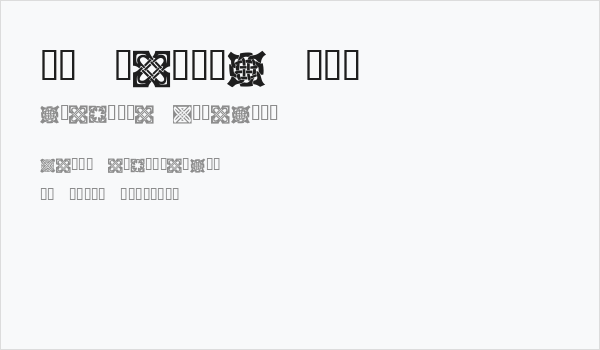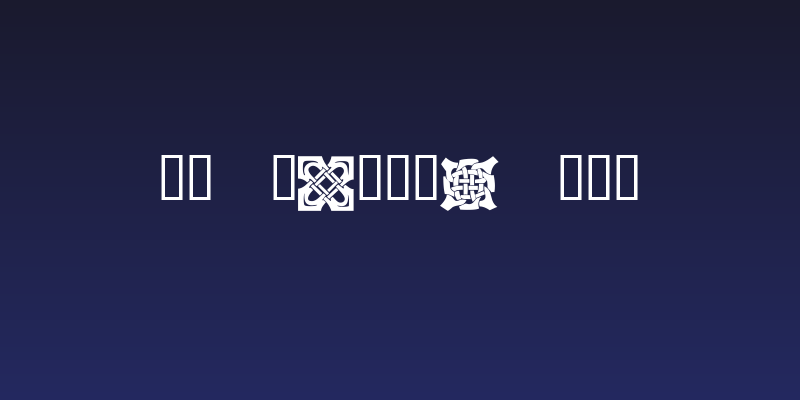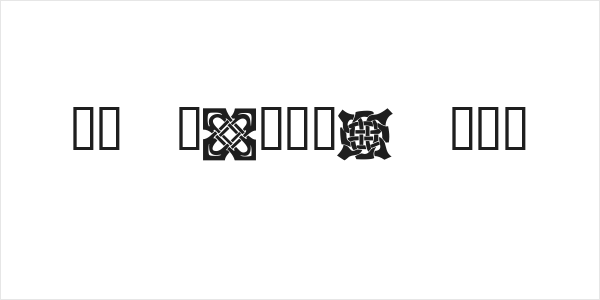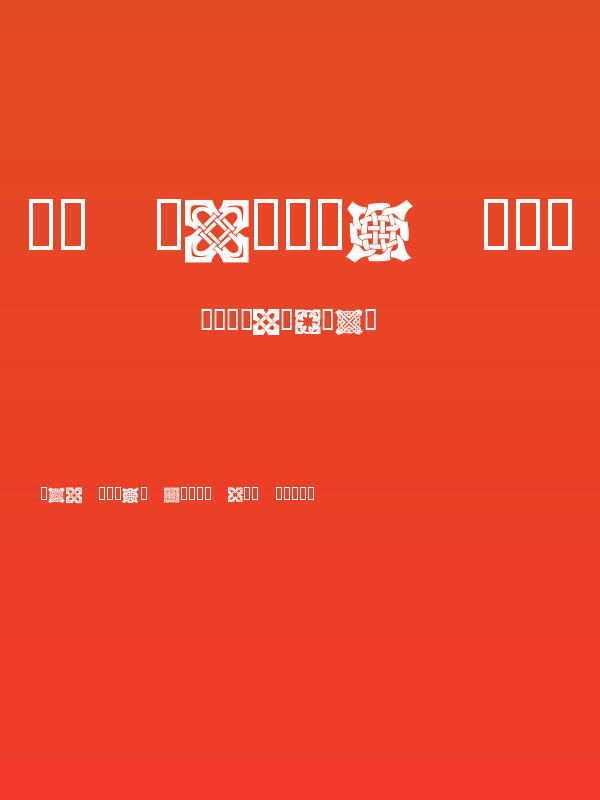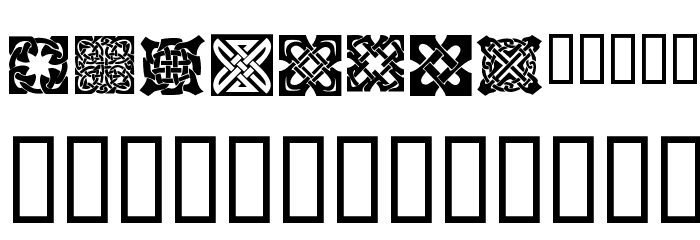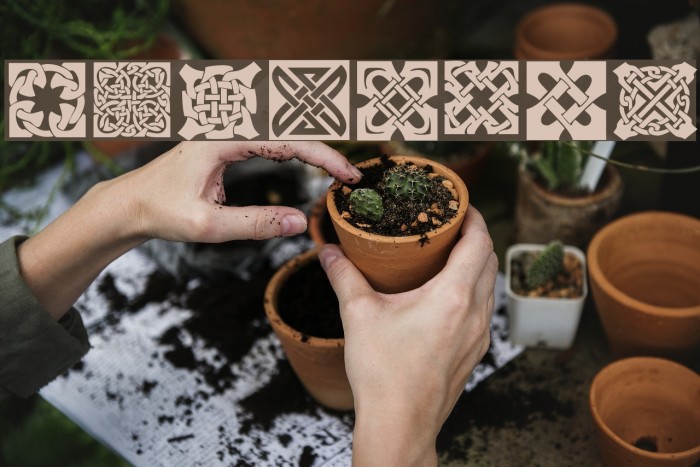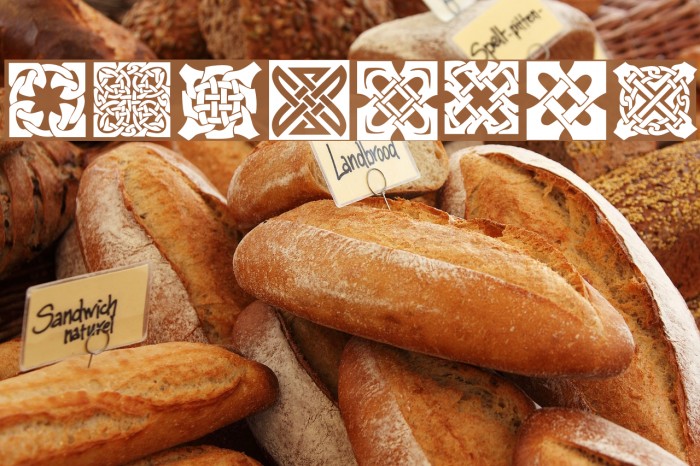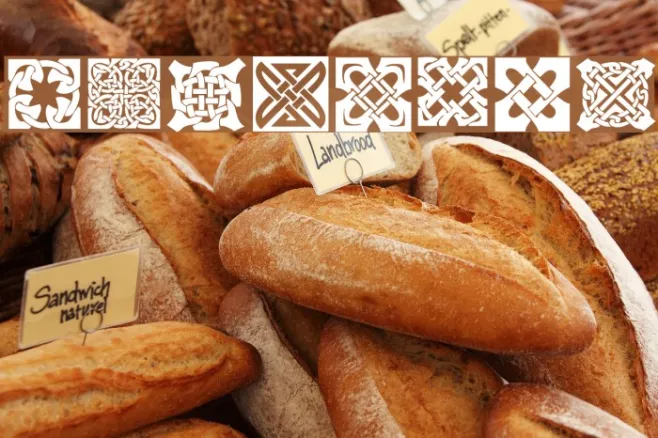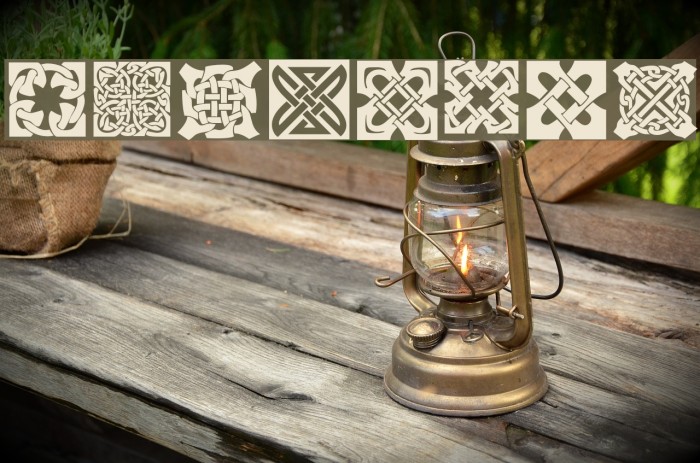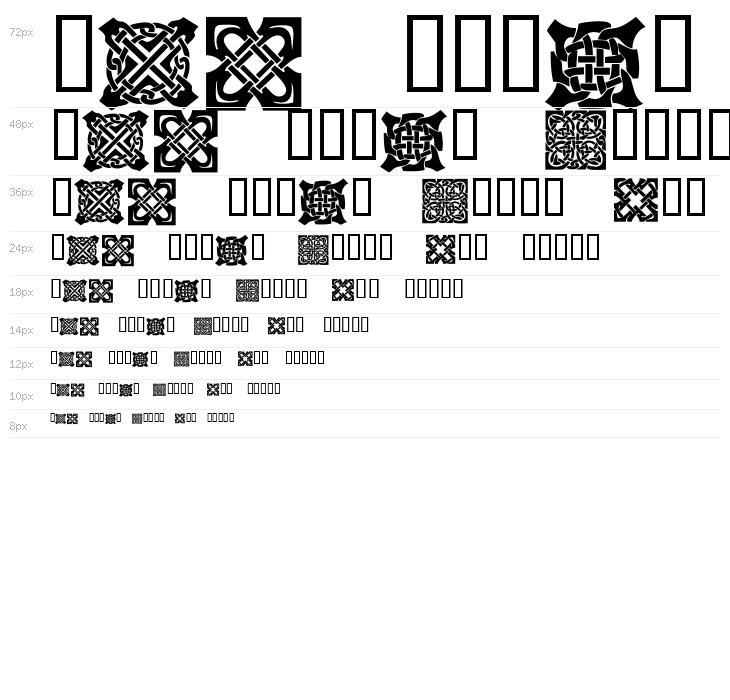
KR Keltic Two Font
KR Keltic Two Description
This font is a decorative display style characterized by intricate Celtic knot patterns. Each character is designed with elaborate interwoven lines, creating a complex and visually striking appearance. The font is highly ornamental, with each letter enclosed in a square, emphasizing its decorative nature. The intricate designs are reminiscent of traditional Celtic art, making it ideal for projects that require a historical or cultural touch. The bold and detailed patterns ensure that each character stands out, making it suitable for attention-grabbing headlines or artistic designs.
| Use Case | Headlines, Logos, Artistic Designs |
| Proposed Projects | Ideal for cultural or historical projects, artistic designs, themed events, or decorative headlines. |